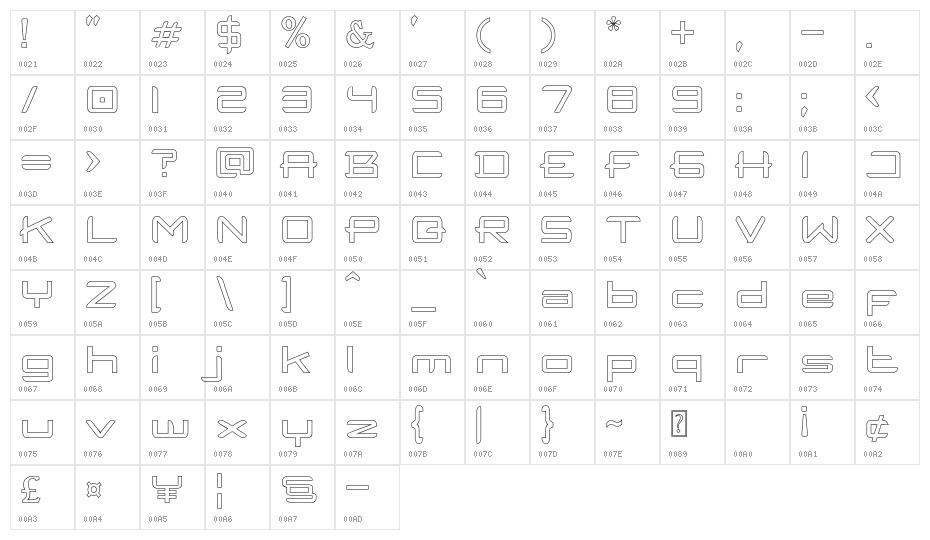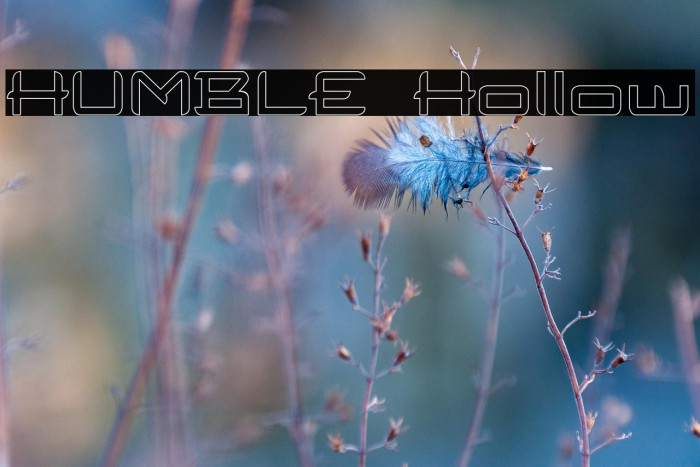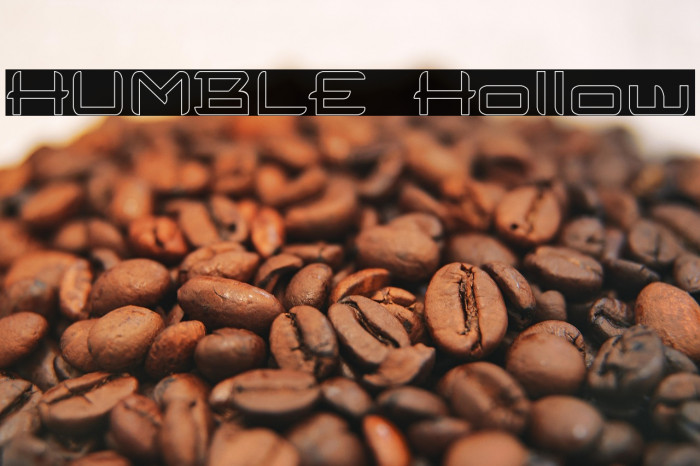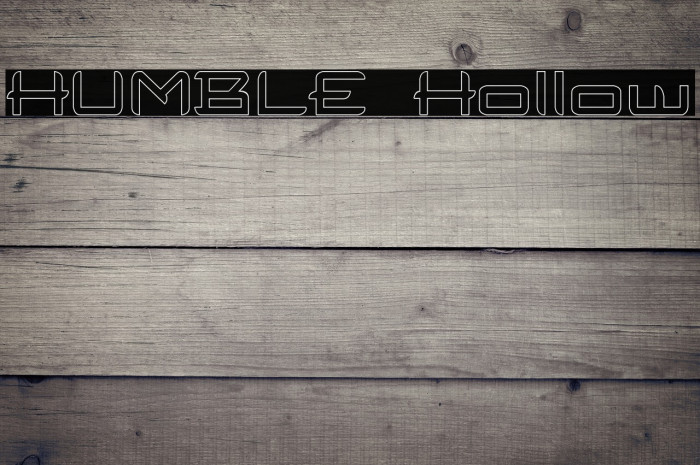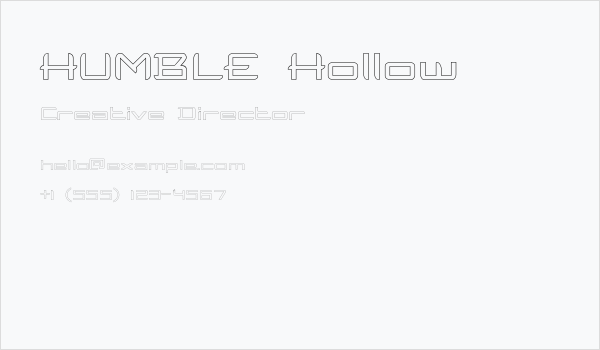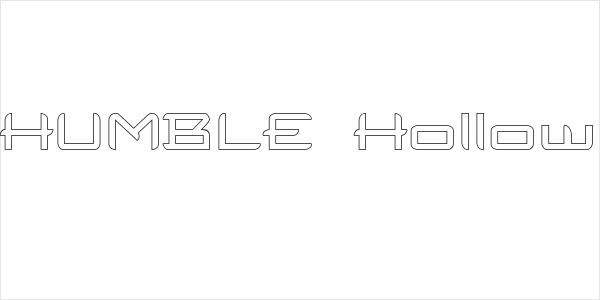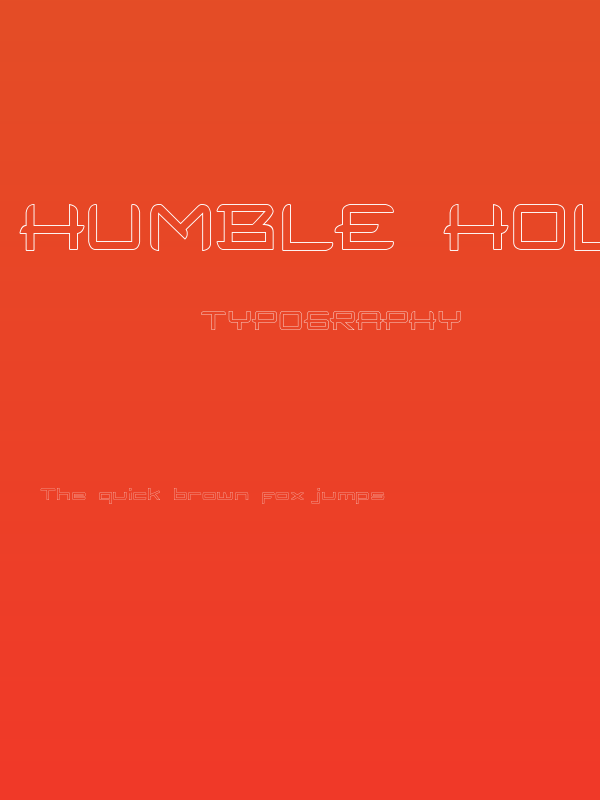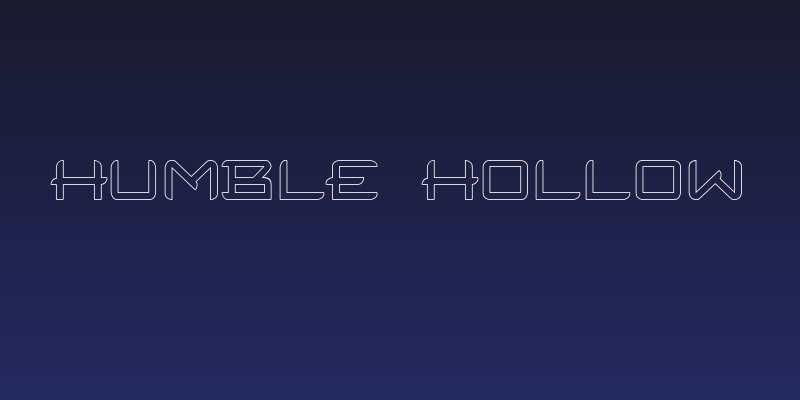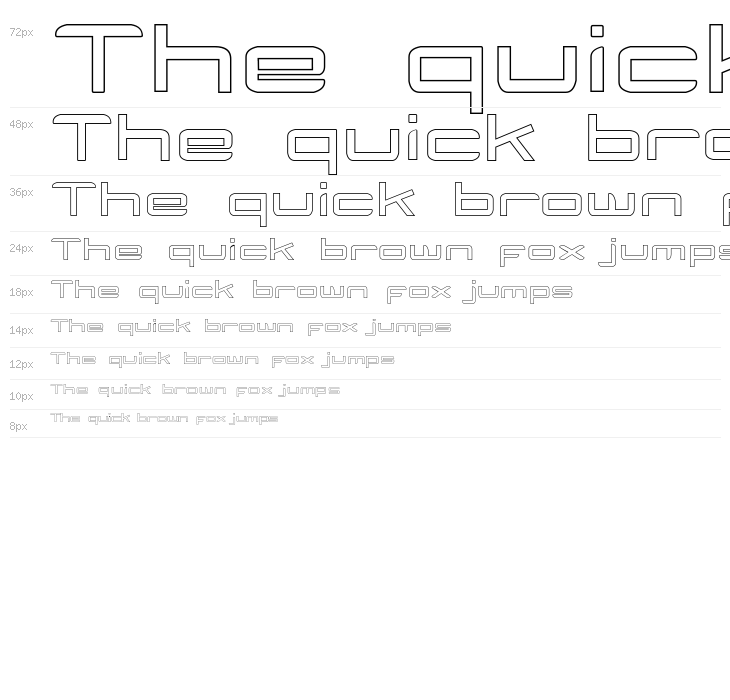
HUMBLE Hollow Font
HUMBLE Hollow Description
This font features a unique hollow design with a futuristic and geometric aesthetic. The characters are outlined, creating a sense of depth and dimension. The uppercase and lowercase letters maintain a consistent style, with clean lines and angular shapes. Numbers and special characters are designed to match the overall theme, providing a cohesive look. The font's hollow nature makes it ideal for projects that require a modern and edgy appearance.